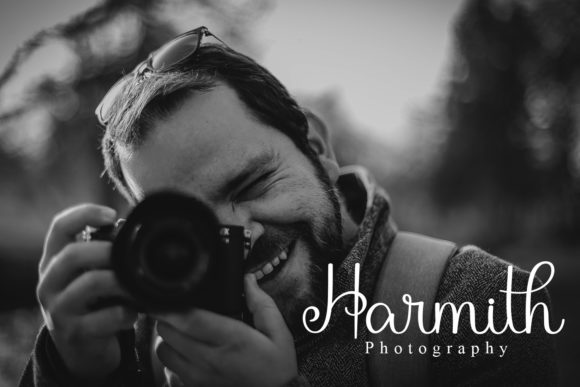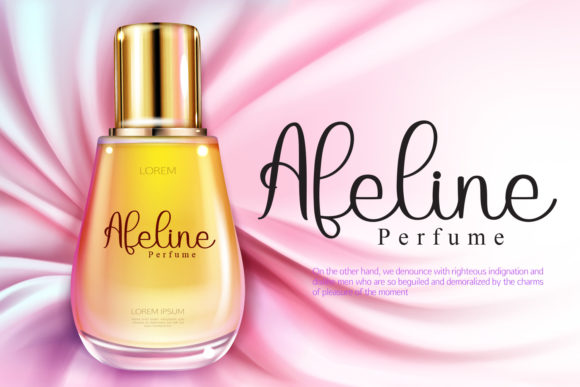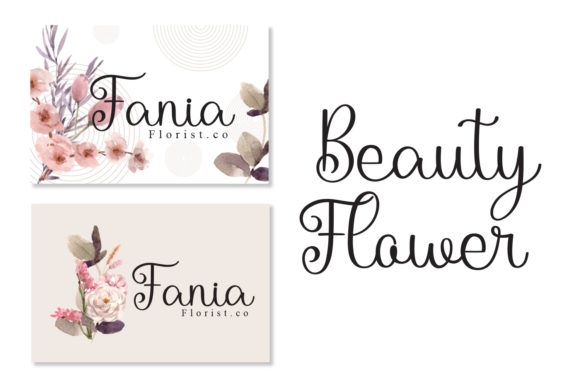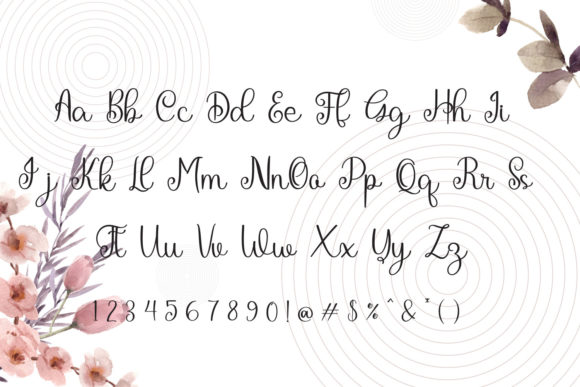
Introduction to Rallyna Font
Rallyna is a beautiful, light handwritten font with a unique feel and a stunning impact.
It will add a luxury spark to any design project that you wish to create This font is PUA encoded which means you can access all of the glyphs and swashes with ease.
Key Features of Rallyna Font